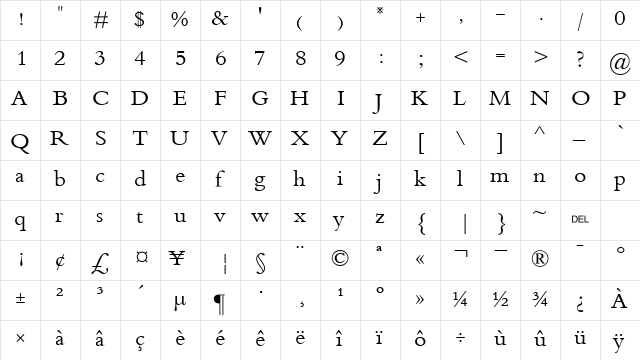
Bassam Ostorah Regular
Design Context for Bassam Ostorah Typeface
Bassam Ostorah is a composed and adaptable typeface that performs quietly and consistently across a wide range of design contexts.
Pro Tip: Use Bassam Ostorah in both headline and body roles to test its range before committing to a single application.